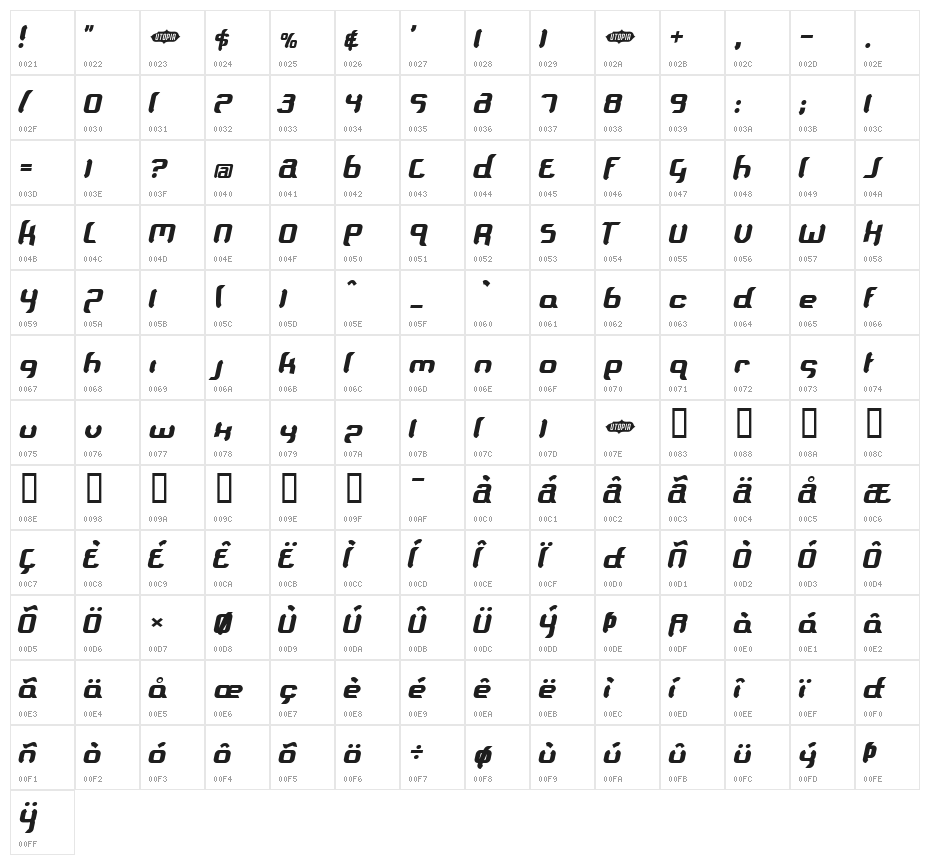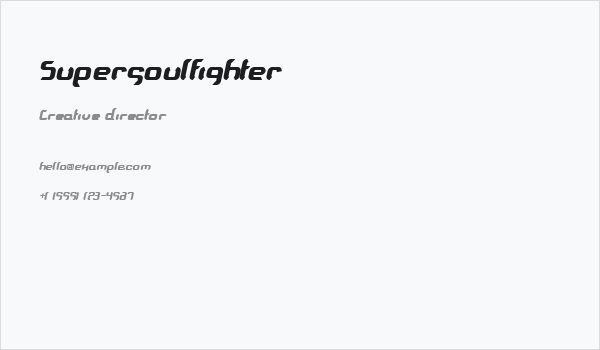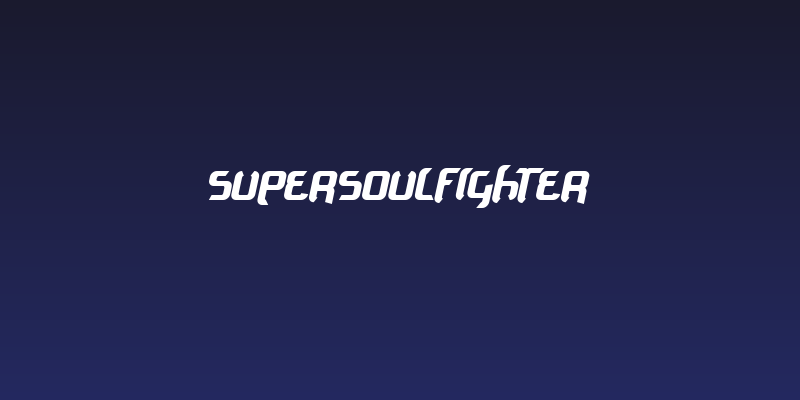
Supersoulfighter Font
Supersoulfighter Description
This font features a bold and dynamic style with a futuristic and slightly aggressive appearance. The characters are uniquely designed with sharp angles and a slanted orientation, giving them a sense of movement and energy. The uppercase and lowercase letters maintain a consistent style, with the uppercase being slightly more angular. The numbers and special characters follow the same design principles, ensuring uniformity across all glyphs. The font's distinct look makes it suitable for projects that require a modern and edgy aesthetic.
| Proposed Projects | Ideal for sci-fi themed designs, video game titles, tech branding, and edgy posters. |